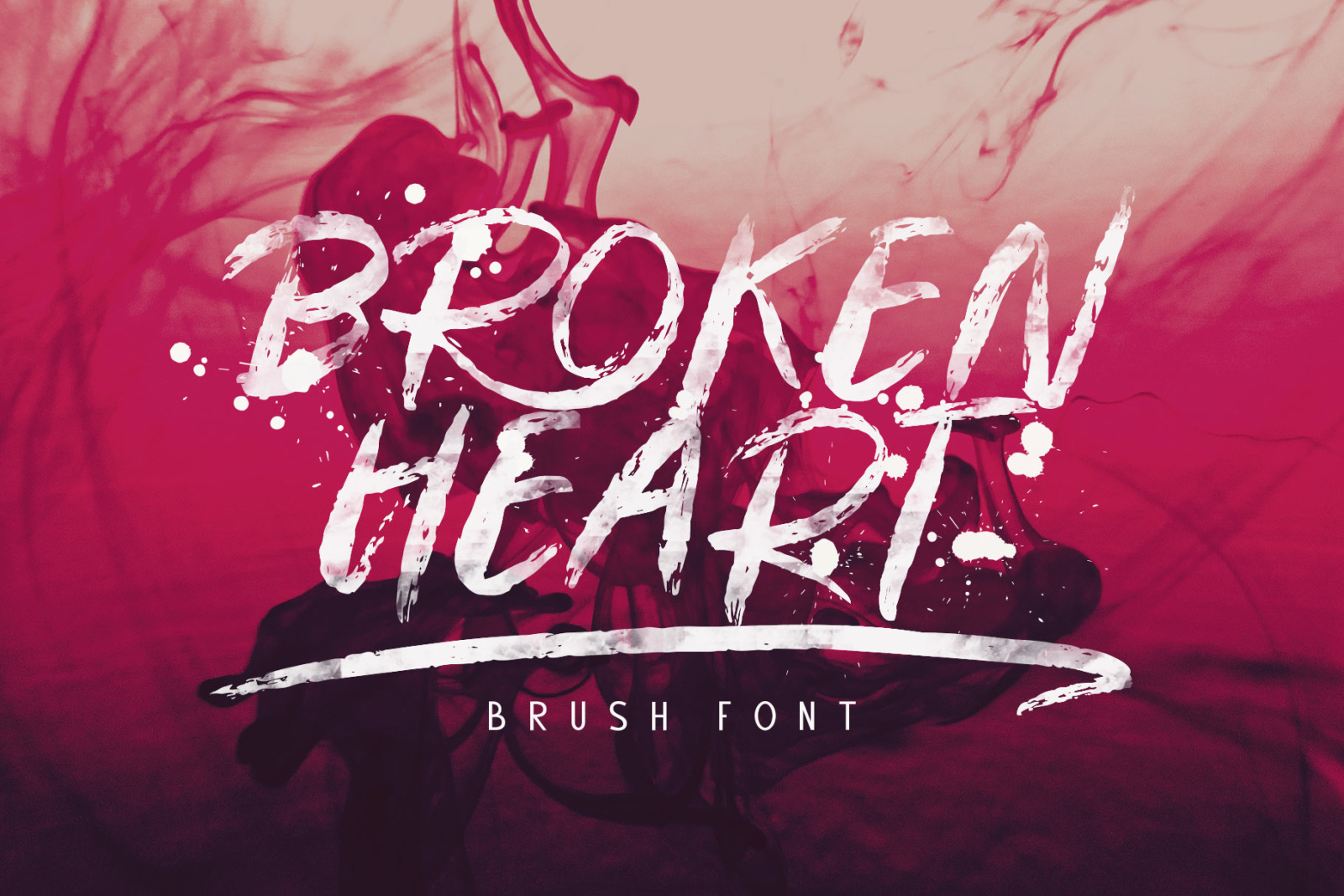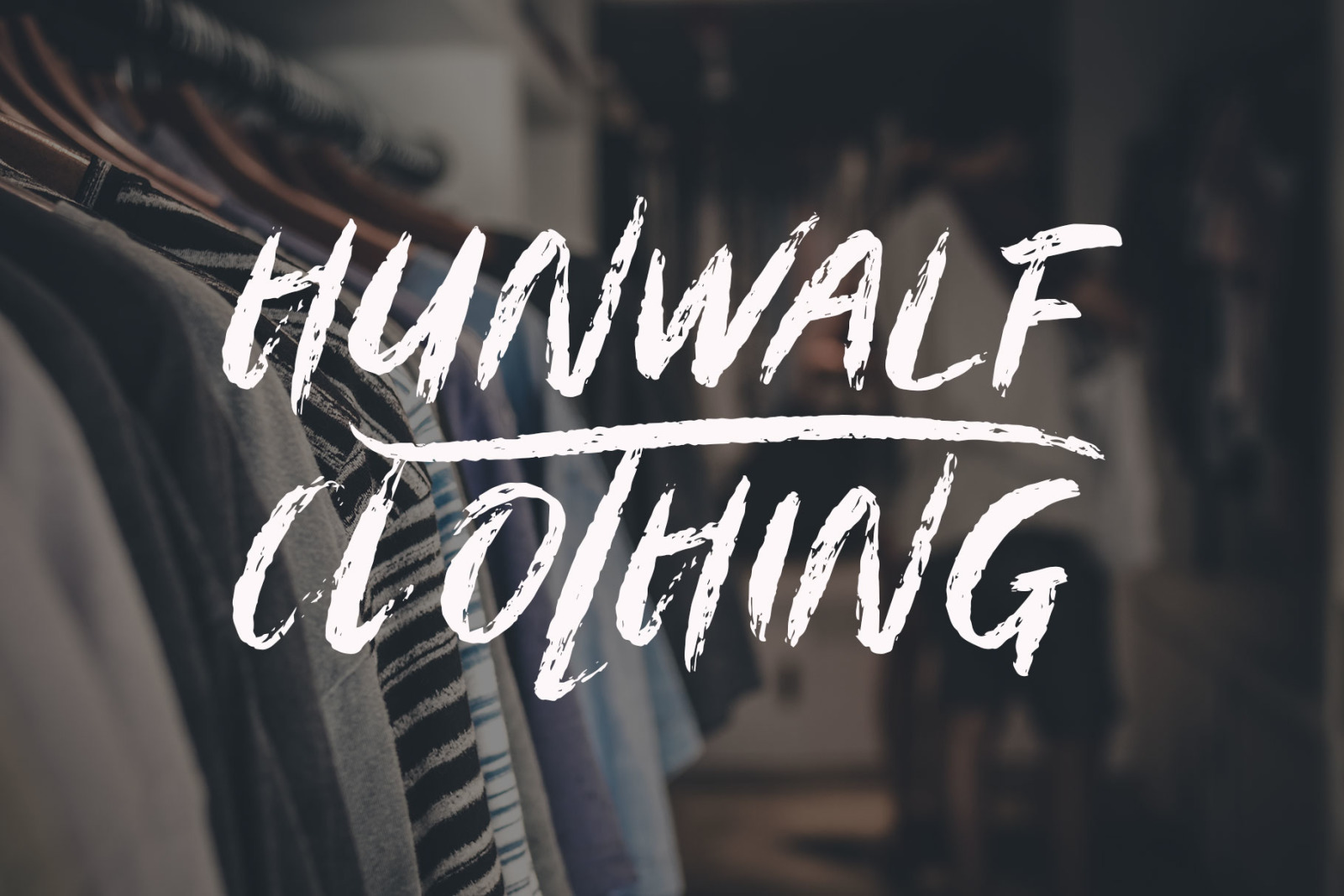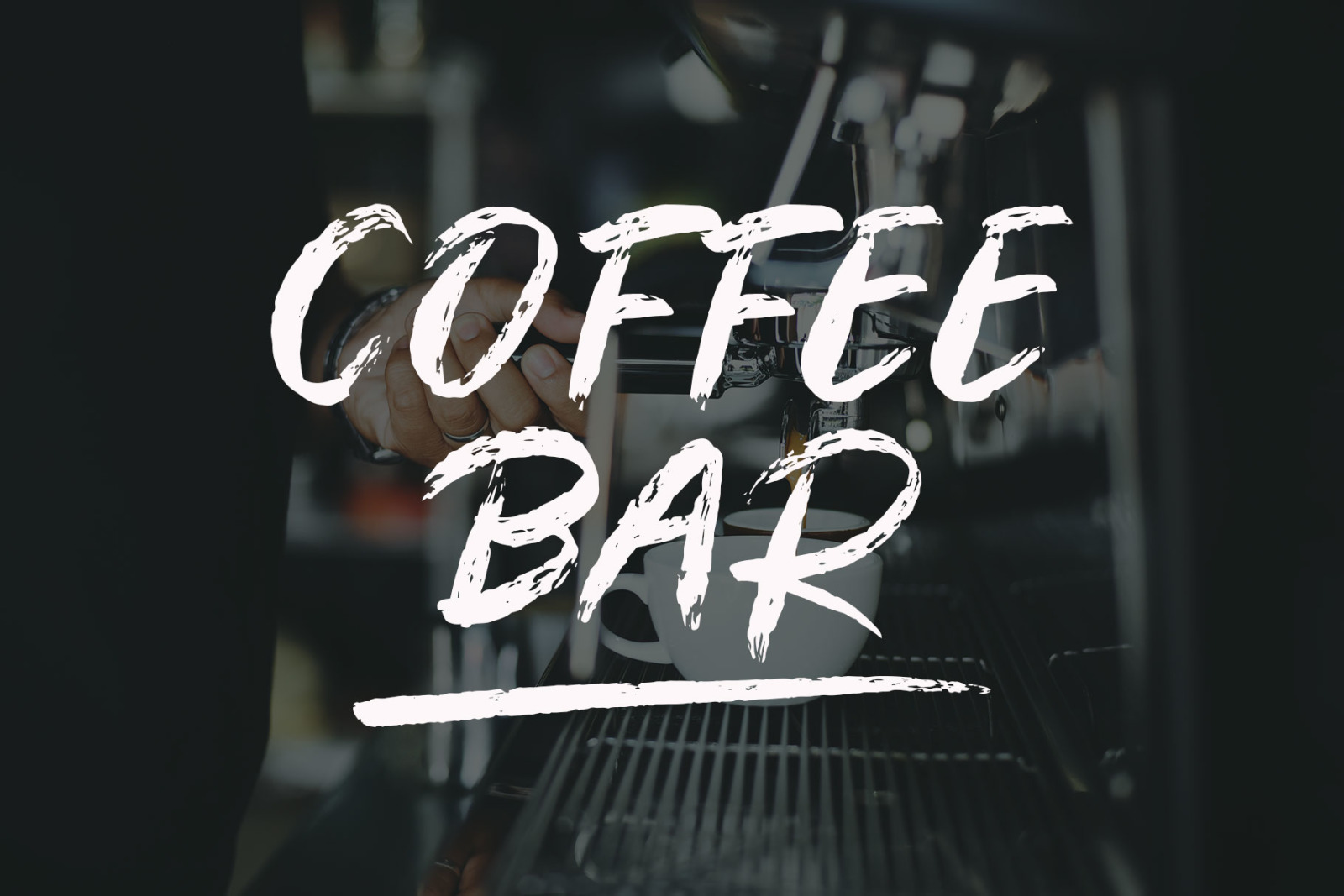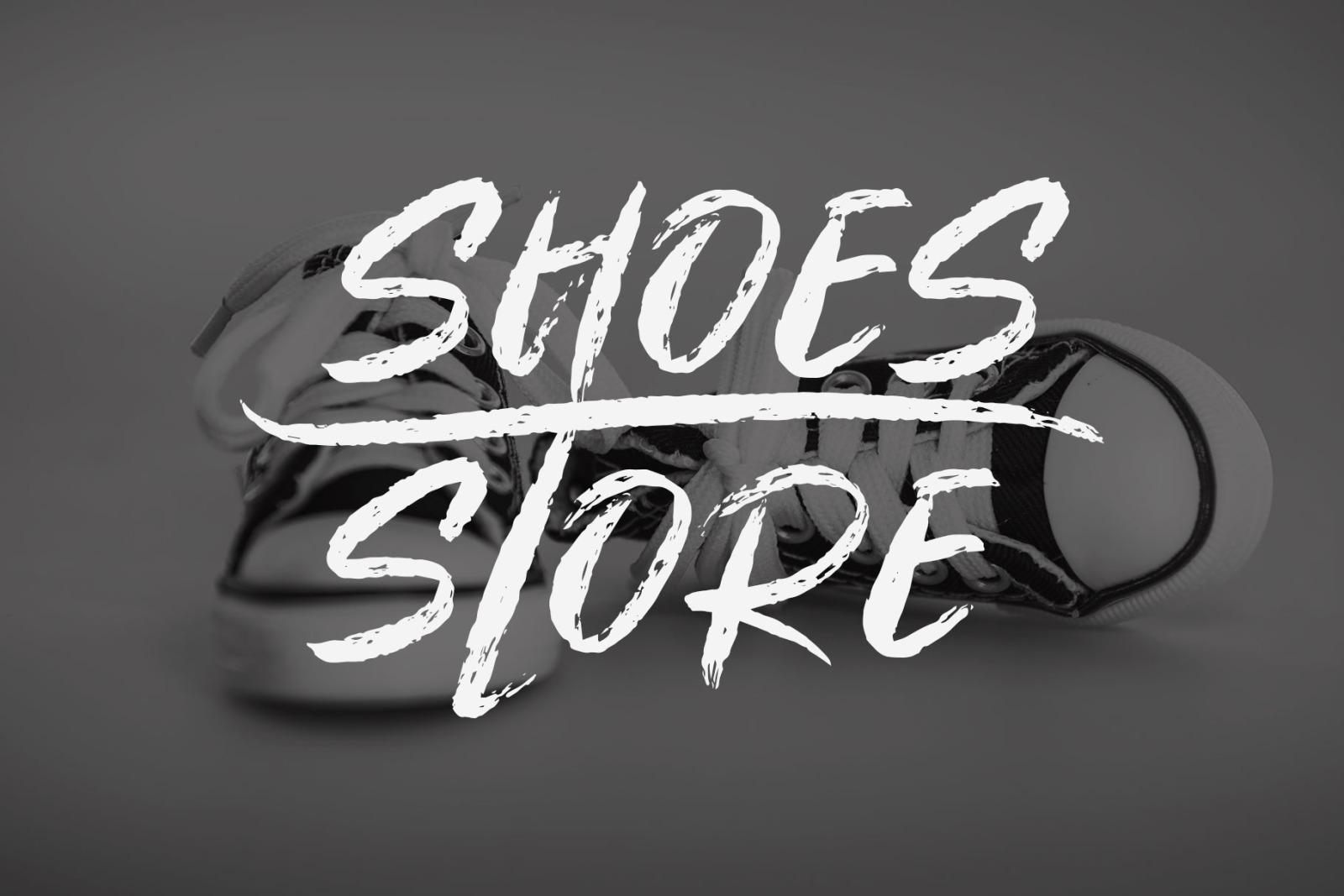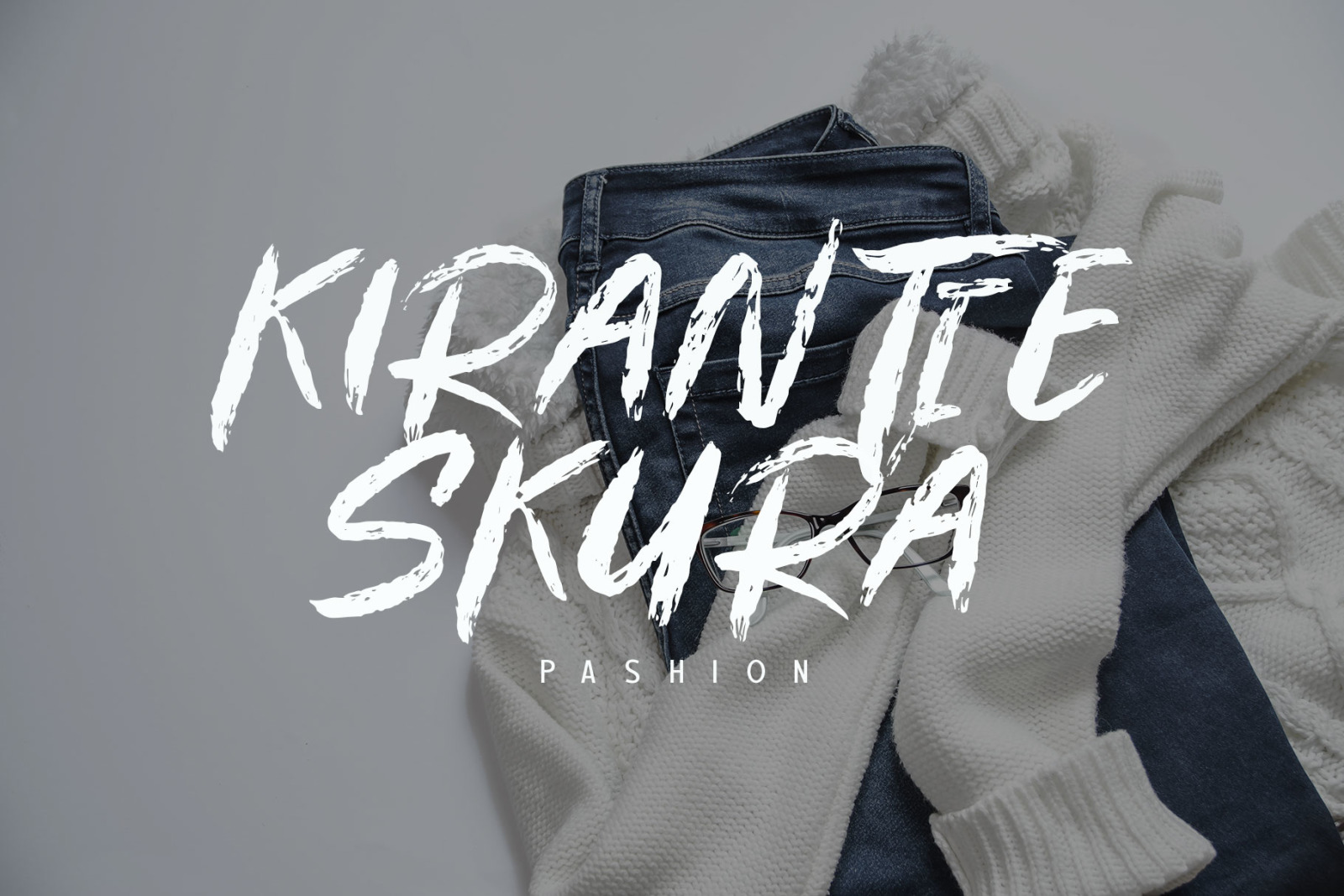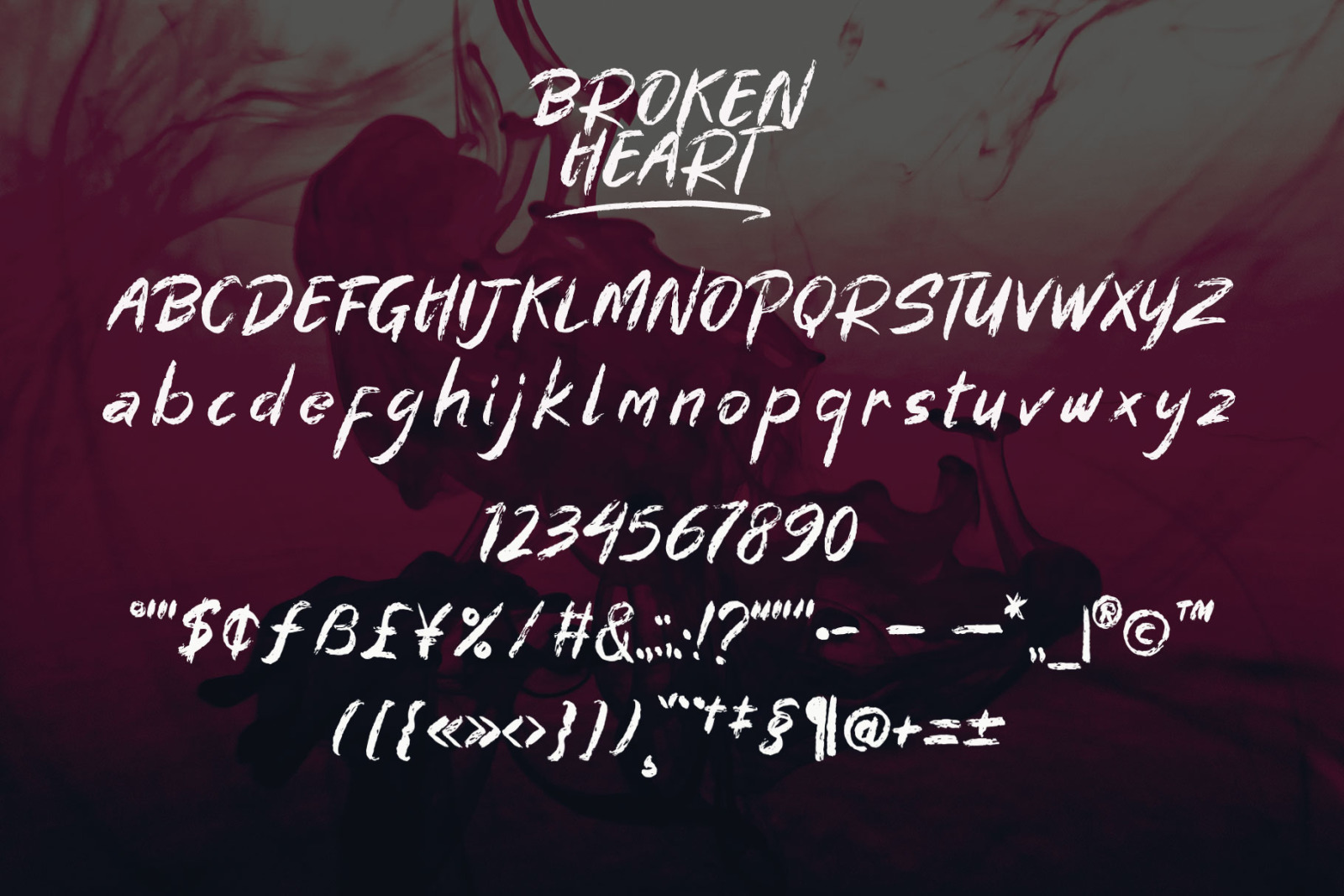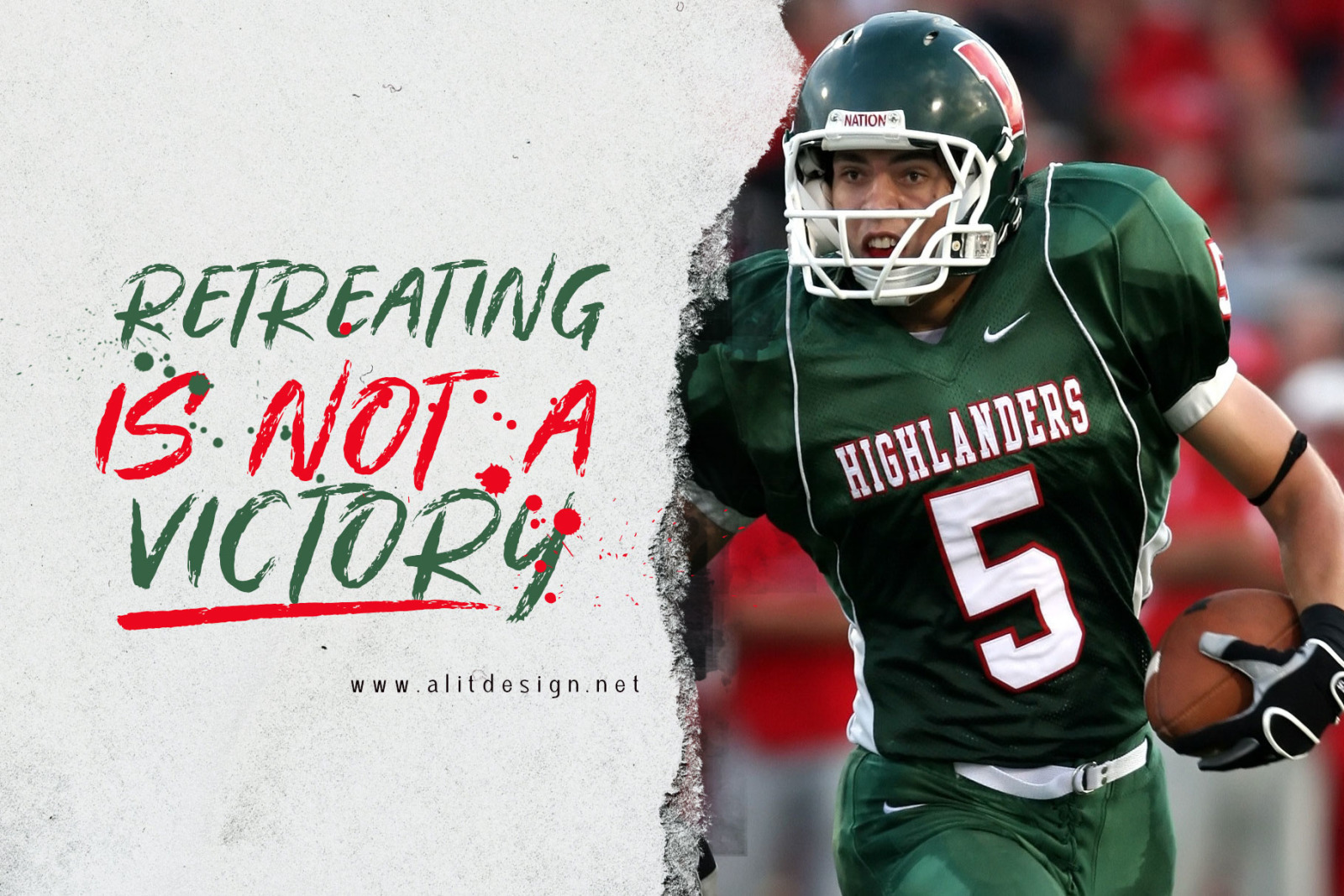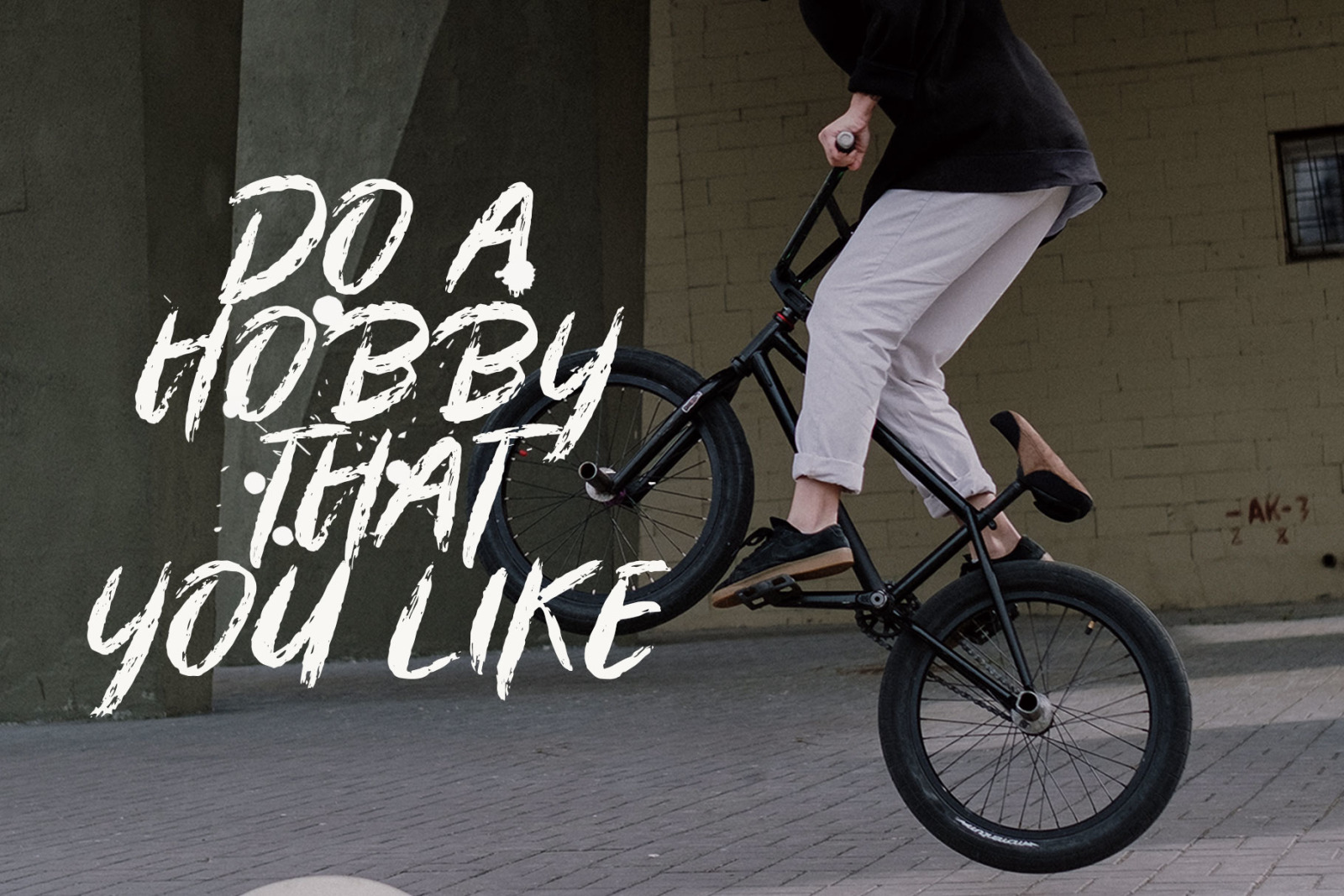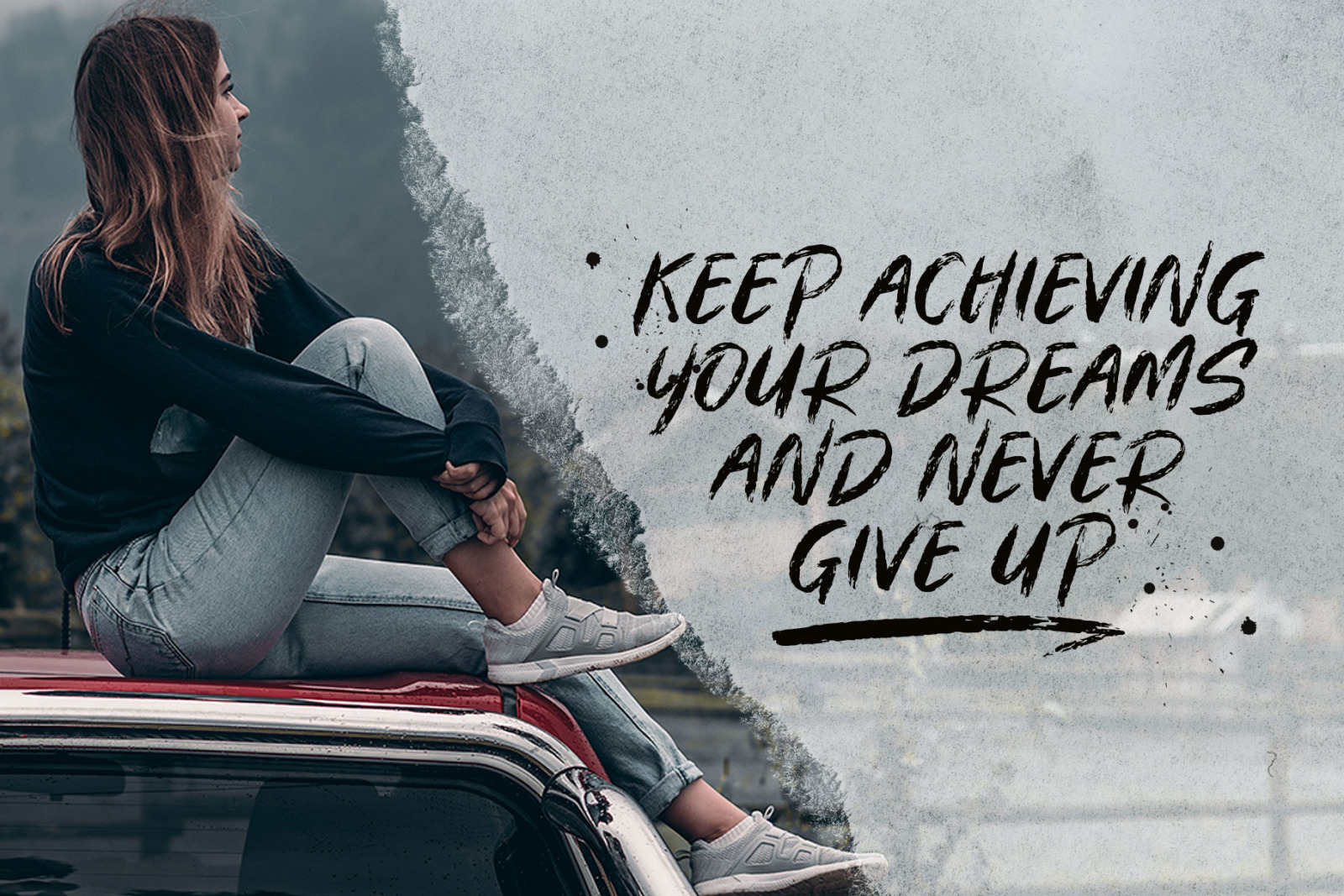
Broken Heart Typeface
Introducing Broken Heart typeface inspired with hand lettering with pen maker and wet brush. And create a bold and free impression. This font is perfect for designs with brave design, sporty, grunge concept and many more.
Stylistic Alternates
Swash
Multilingual